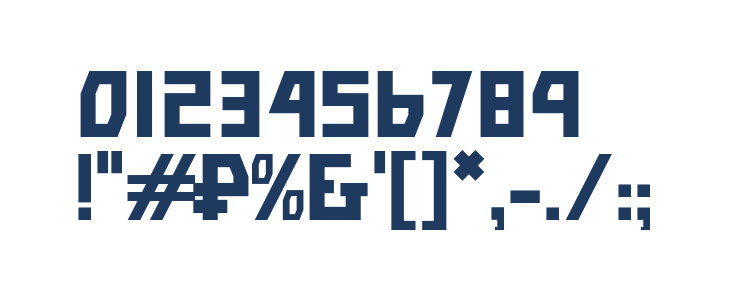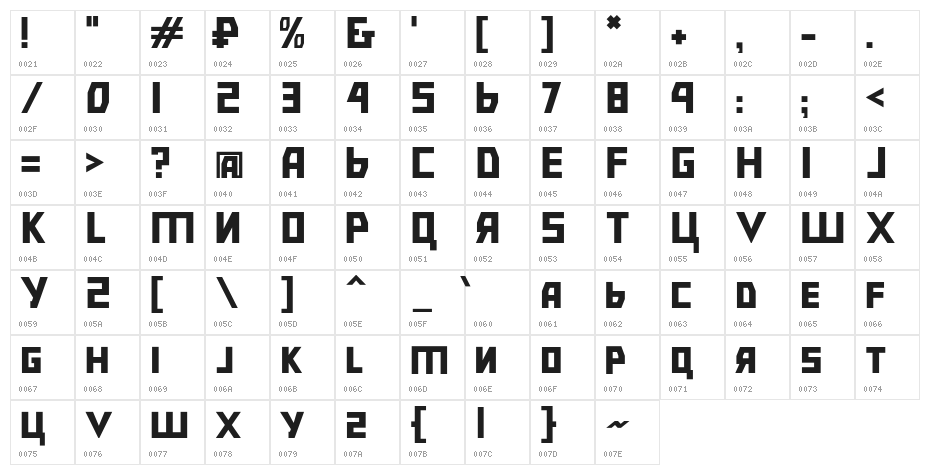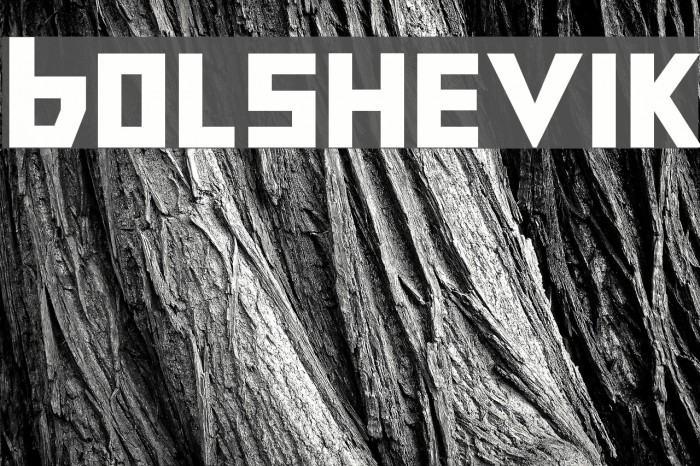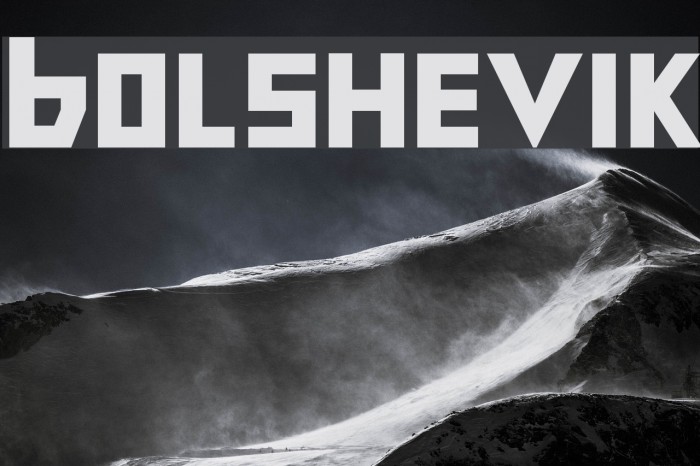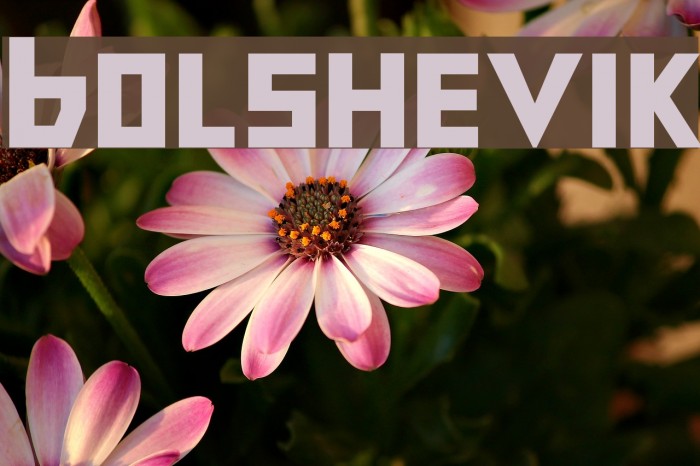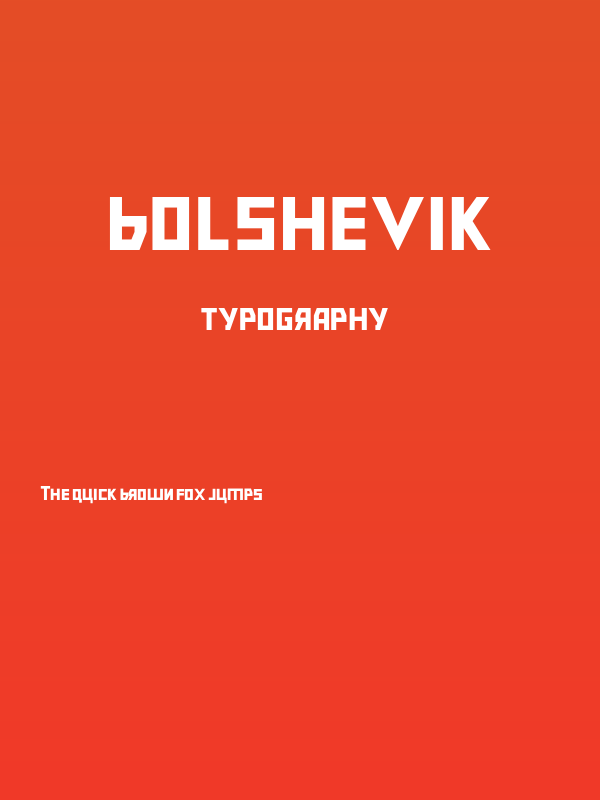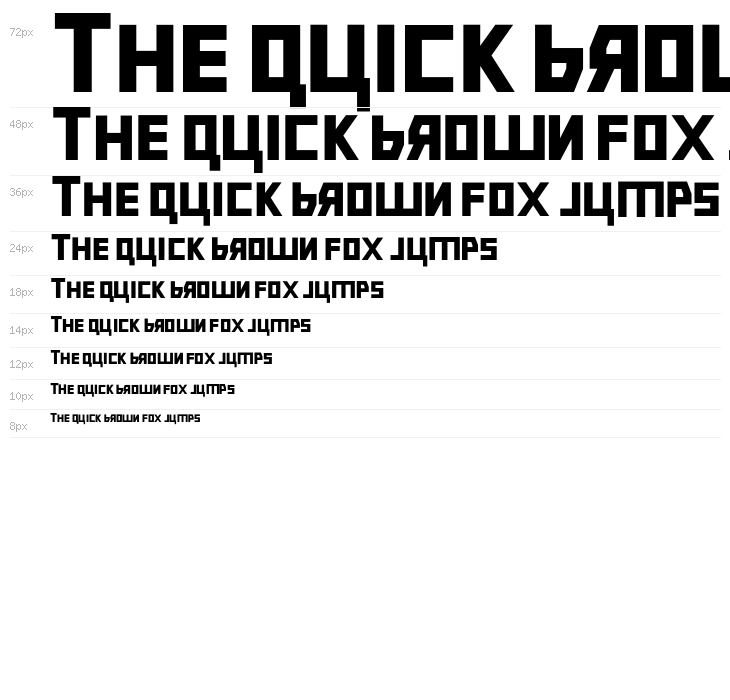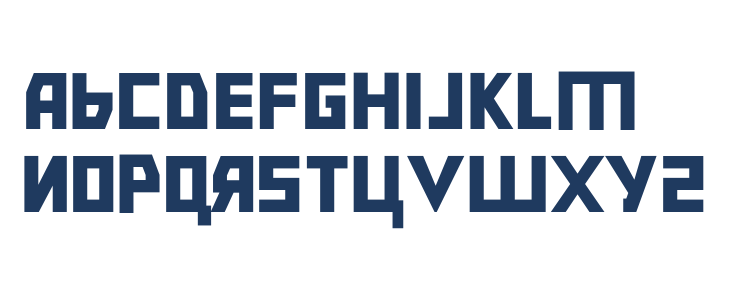
Bolshevik Font
Bolshevik Description
This font features a bold, geometric design with strong, angular lines and a distinctly modern aesthetic. The characters are constructed with sharp edges and a uniform stroke width, creating a sense of solidity and strength. The uppercase letters are particularly striking, with a blocky appearance that commands attention. The numerals and special characters maintain this bold style, ensuring consistency across all glyphs. The font's design is reminiscent of constructivist and industrial styles, making it ideal for projects that require a sense of power and modernity.